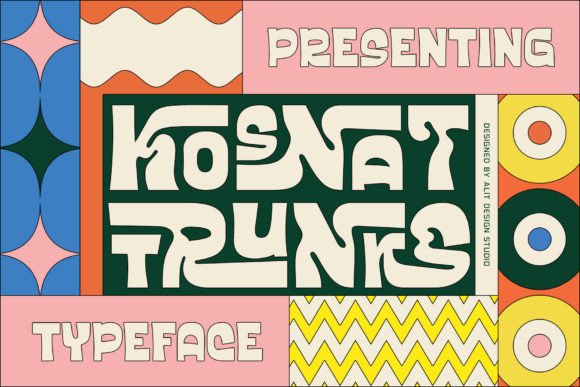
Introducing Kosnat Trunks Font, the ultimate choice for designers seeking the perfect blend of vintage charm and contemporary elegance. Crafted by the talented Alit Design, this sans-serif display font is a typographic masterpiece that will captivate your audience from the very first glance.
With its retro-inspired aesthetics and modern twist, Kosnat Trunks Font is more than just a typeface – it's a unique expression of creativity and style. Its wavy ligatures add a sense of fluidity and movement, making every letter a work of art. Whether you're designing display posters, branding materials, or social media graphics, this font will infuse your projects with a touch of sophistication and originality.
With an impressive collection of 920 meticulously crafted glyphs, Kosnat Trunks Font offers endless possibilities for customization. From elegant uppercase letters to intricate lowercase characters, each glyph has been thoughtfully designed to ensure seamless harmony and visual appeal. Let your imagination run wild as you experiment with different letter combinations, creating truly one-of-a-kind designs that are sure to leave a lasting impression.
What sets Kosnat Trunks Font apart from the rest is its ability to evoke emotion and create a connection with your audience. Its timeless appeal appeals to a wide range of industries, from fashion and beauty to travel and lifestyle. Whether you're aiming for a vintage-inspired look or a modern and edgy vibe, this font will effortlessly adapt to your vision, enhancing the overall impact of your design.
Unlock the full potential of your designs with Kosnat Trunks Font – the ultimate tool for designers who refuse to settle for ordinary. Embrace the beauty of retro aesthetics, combined with a touch of modern design, and watch as your creations come to life in ways you never thought possible.